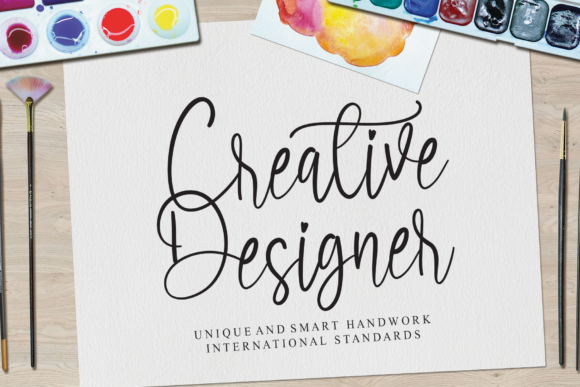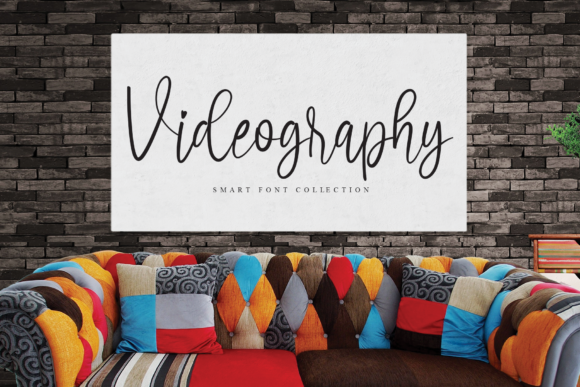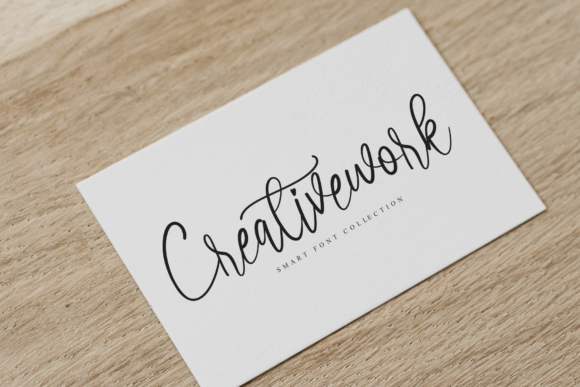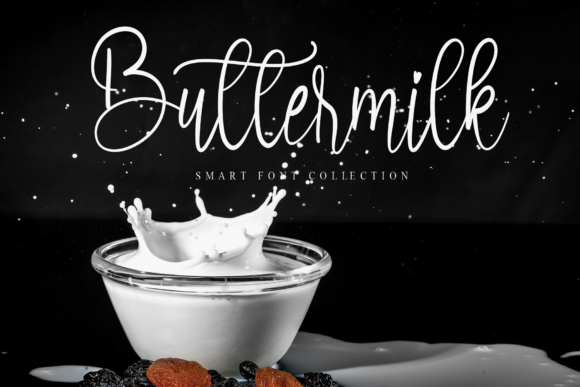
Betterlove Font: The Delicate and Elegant Handwritten Font for Stunning Designs
Are you a designer or crafter looking for a font that can add a touch of elegance and sophistication to your designs? Look no further than the Betterlove font. This delicate and elegant handwritten font is sure to capture your heart with its distinct and well-balanced letters, making it a masterpiece for any design project.
What Makes Betterlove Font So Special?
Betterlove font is a unique and versatile font that can be used for a wide range of design projects. Its distinct and well-balanced letters make it a standout font that can add a touch of elegance and sophistication to any design. The font is incredibly versatile, making it perfect for use in various design projects, from wedding invitations and branding materials to social media graphics and more.
Key Features of Betterlove Font
- Delicate and Elegant: Betterlove font is a delicate and elegant handwritten font that is perfect for designs that require a touch of sophistication.
- Distinct and Well-Balanced Letters: The font features distinct and well-balanced letters that make it a standout font for any design project.
- Incredibly Versatile: Betterlove font is incredibly versatile, making it perfect for use in various design projects, from wedding invitations and branding materials to social media graphics and more.
- Easy to Read: The font is easy to read, making it perfect for use in designs that require a clear and concise message.
Uses of Betterlove Font
Betterlove font can be used for a wide range of design projects, including:
- Wedding Invitations: The font’s delicate and elegant style makes it perfect for use in wedding invitations and other wedding-related designs.
- Branding Materials: Betterlove font can be used to create stunning branding materials, such as logos, business cards, and letterheads.
- Social Media Graphics: The font’s versatility makes it perfect for use in social media graphics, such as Facebook posts, Instagram stories, and more.
- Stationery: Betterlove font can be used to create beautiful stationery, such as notebooks, journals, and more.
Why Choose Betterlove Font?
There are many reasons why you should choose Betterlove font for your design projects. Here are a few:
- Unique and Elegant: Betterlove font is a unique and elegant font that can add a touch of sophistication to any design.
- Versatile: The font is incredibly versatile, making it perfect for use in various design projects.
- Easy to Read: The font is easy to read, making it perfect for use in designs that require a clear and concise message.
- High-Quality: Betterlove font is a high-quality font that is designed to deliver stunning results.
In conclusion, Betterlove font is a delicate and elegant handwritten font that is perfect for designers and crafters looking to add a touch of sophistication to their designs. Its distinct and well-balanced letters make it a masterpiece for any design project. With its versatility, ease of use, and high-quality design, Betterlove font is a must-have for any designer or crafter looking to create stunning designs.